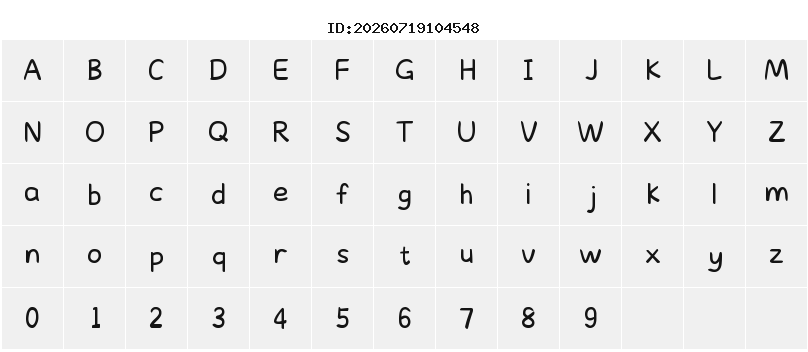
• Font Name: YEFONTRuiYunNongKaiShu 標準
• Full Font Name: 也字工廠瑞雲濃楷書 標準
• Manufacturer: 也字工厂
About YEFONTRuiYunNongKaiShu 標準.TTF
YEFONTRuiYunNongKaiShu 標準.TTF is a modern, elegant sans-serif font designed for ultimate readability and visual harmony. Perfect for branding, headlines, web design, and print materials.